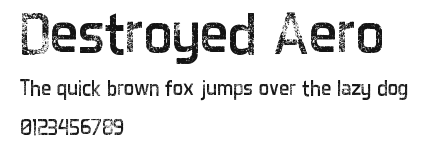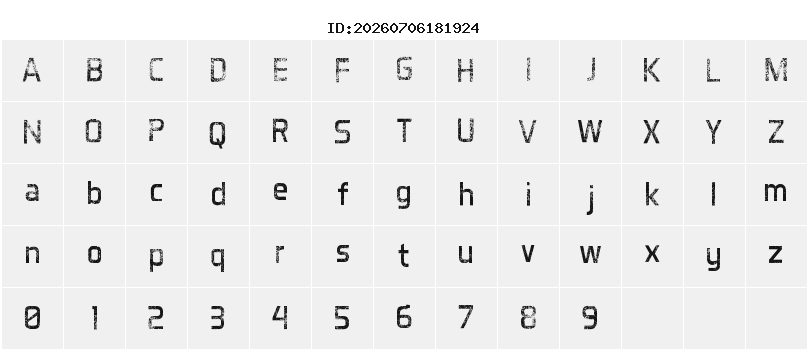
• Font Name: Destroyed Aero
• Designer: Jayvee D. Enaguas (GrandChaos)
About Destroyed Aero.ttf
Destroyed Aero.ttf is a modern, elegant sans-serif font designed for ultimate readability and visual harmony. Perfect for branding, headlines, web design, and print materials.